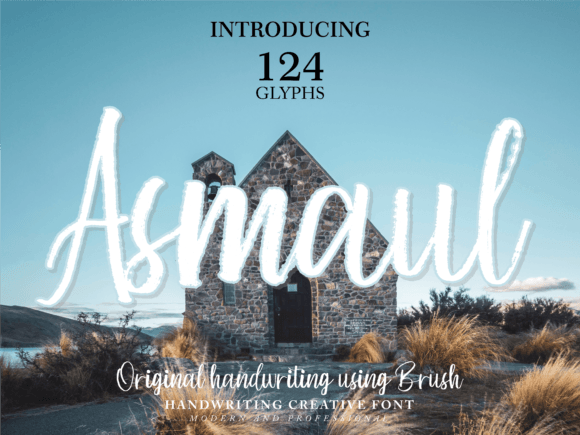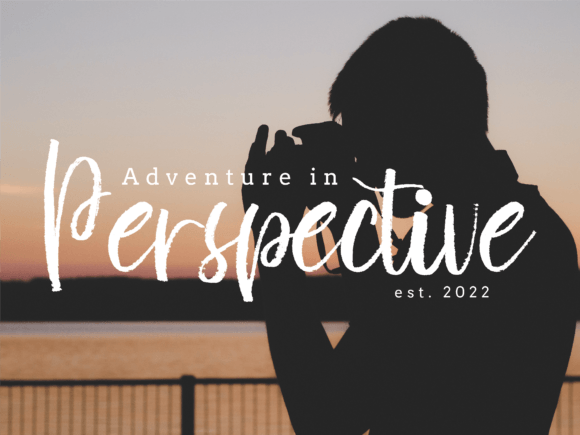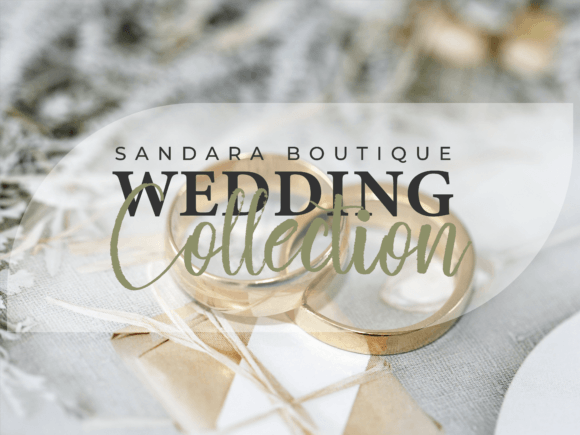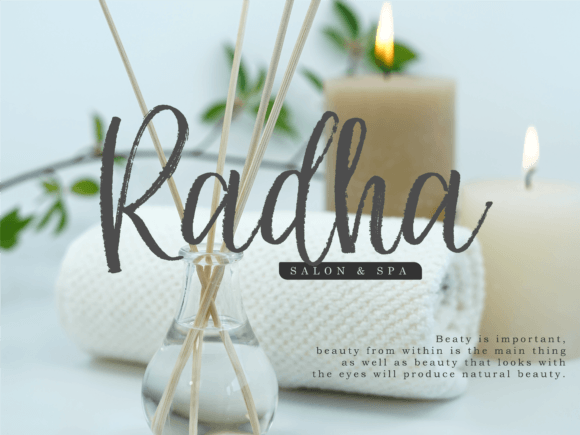
About Asmaul Font
**Asmaul** is a captivating brush handwritten font designed to bring a bold and dynamic touch to a wide range of creative projects. Its artistic strokes and natural flow make it an excellent choice for various applications, allowing your designs to stand out with an impressive typography statement. Whether you’re creating wall displays, wedding invitations, social media posts, logos, advertisements, product packaging, labels, photography, watermarks, stationery, or any other project that demands a striking and expressive typography, **Asmaul** adds a touch of creativity and sophistication to elevate your designs.
**Artistic Brush Strokes**: **Asmaul** features expressive and artistic brush strokes that convey a sense of energy and spontaneity. Its handcrafted design brings a raw and natural feel to the text, making it visually appealing and engaging. The brush strokes add a touch of authenticity and creativity, ensuring the typography looks unique and captivating.
**Versatile Design Applications**: **Asmaul** is incredibly versatile and suitable for a wide range of design applications. Whether used for wall displays, invitations, social media posts, advertisements, product packaging, labels, or stationery, the font seamlessly adapts to different contexts. Its dynamic and bold appearance enhances the visual impact of diverse projects, adding a touch of flair and personality to the content.
**Impressive Typography**: **Asmaul** offers impressive typography that commands attention. Its bold and impactful letterforms make a strong visual statement, ensuring the text becomes a focal point in your designs. Whether used for branding, advertising, or decorative purposes, the font’s impressive typography creates a memorable and lasting impression on viewers.
**Enhancing Creative Projects**: **Asmaul** serves as a creative tool to enhance various projects. Its versatility allows you to experiment with different design concepts and styles, adding a touch of artistic flair to your creations. The font enhances the overall aesthetics of your designs, making them visually appealing and inspiring.
In summary, **Asmaul** is more than just a font; it’s an artistic expression that elevates your creative projects to new heights. Its artistic brush strokes, versatile design applications, impressive typography, and ability to enhance creative projects make it a valuable asset for designers. By incorporating **Asmaul** into your designs, you can infuse them with a sense of creativity and sophistication, ensuring your projects leave a lasting impression on viewers. Let **Asmaul** be the expressive and dynamic companion that adds a touch of artistic brilliance to your creative endeavors, making them truly impressive and memorable.